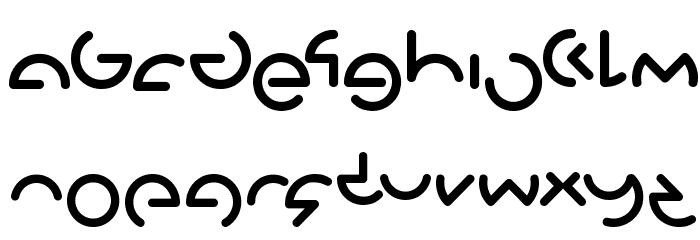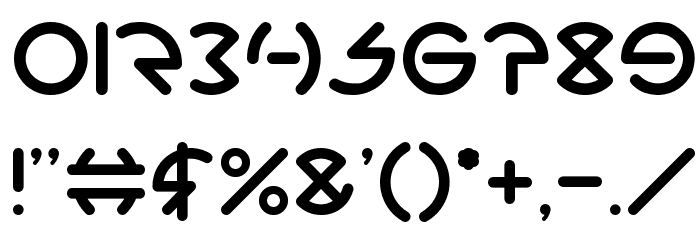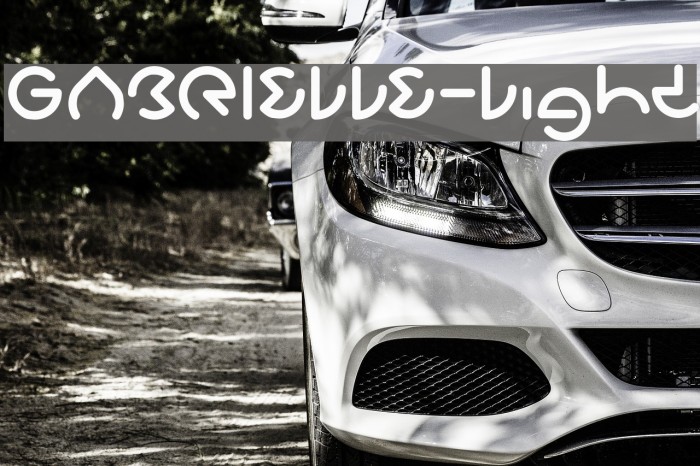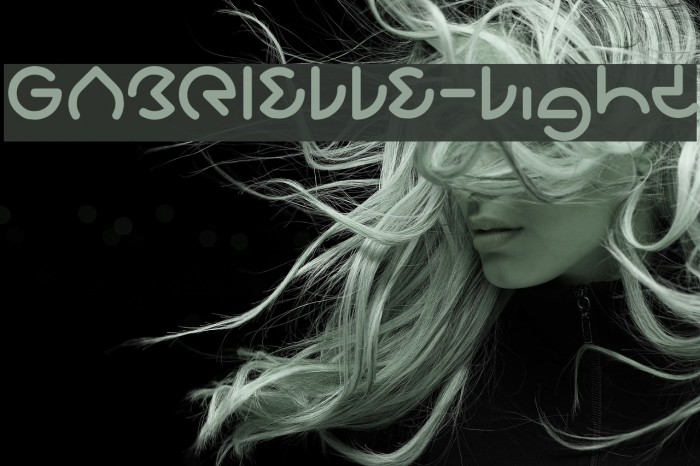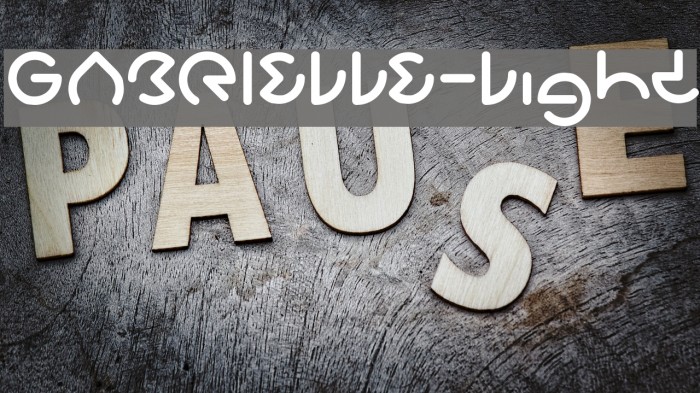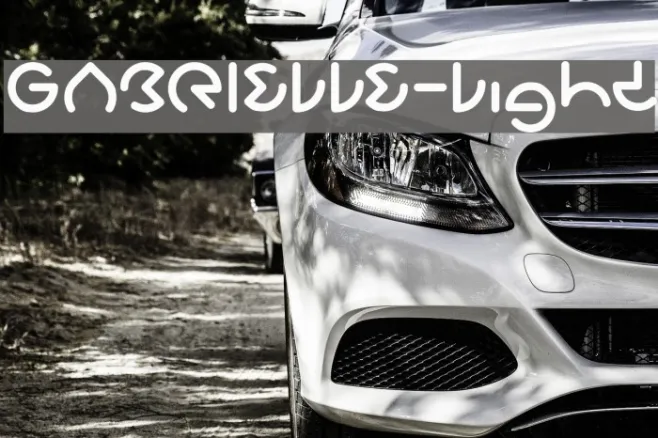
GABRIELLE-Light Font
This font features a unique and modern design with a futuristic flair. The characters are composed of bold, rounded strokes that create a sense of movement and fluidity. The uppercase and lowercase letters maintain a consistent style, with smooth curves and a playful yet sophisticated appearance. The numbers and special characters are equally distinctive, adding to the font's cohesive look. The overall design is both eye-catching and versatile, making it suitable for a variety of creative projects.
A modern, futuristic font with bold, rounded strokes and a playful yet sophisticated style.
- Proposed Projects: Ideal for branding, advertising, digital media, and creative projects that require a modern and distinctive look.